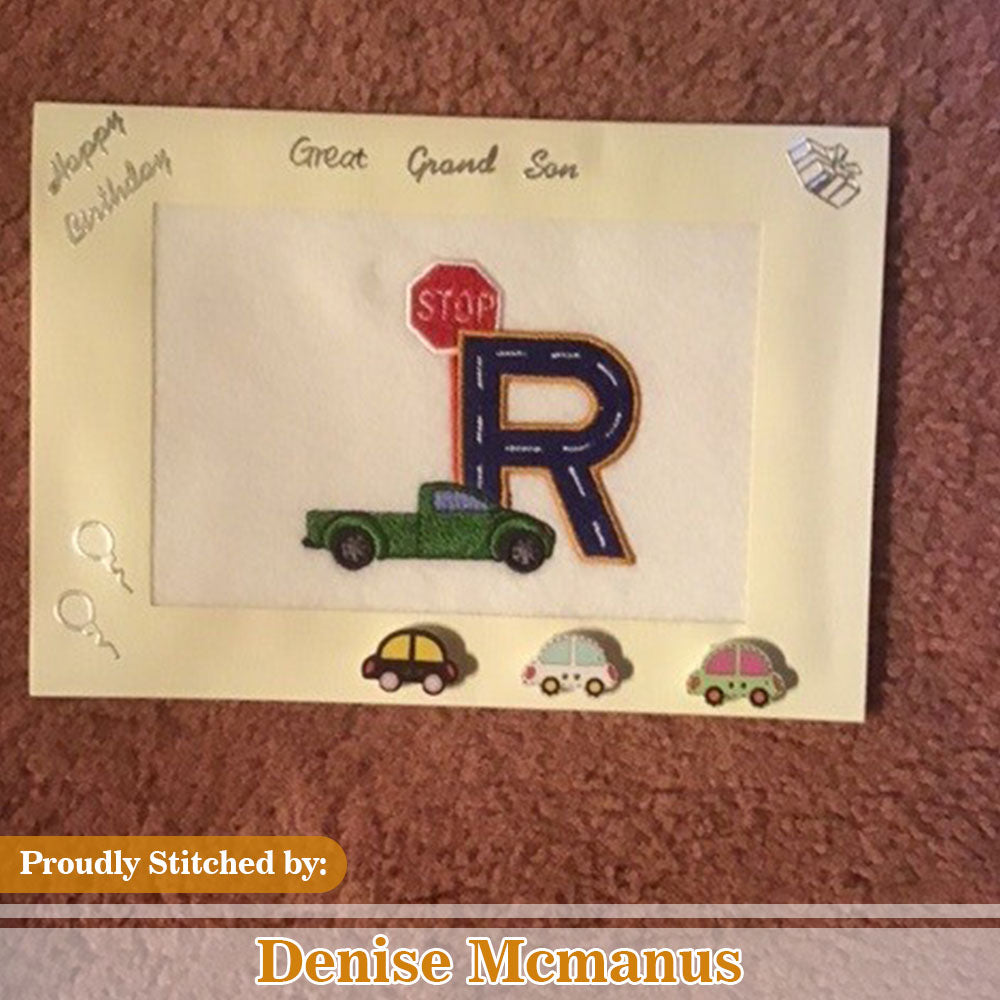
Looking for a fun and playful way to add a unique touch to your next embroidery project? The Cars Font collection from Stitch Delight has got you covered!
Featuring a set of 26 car-inspired letters for your 4X4" hoop, this font is perfect for adding a pop of personality to anything from children's clothing to personalized gifts. And with the easy-to-use BX format for Embrilliance, typing out your favorite names and quotes has never been simpler.